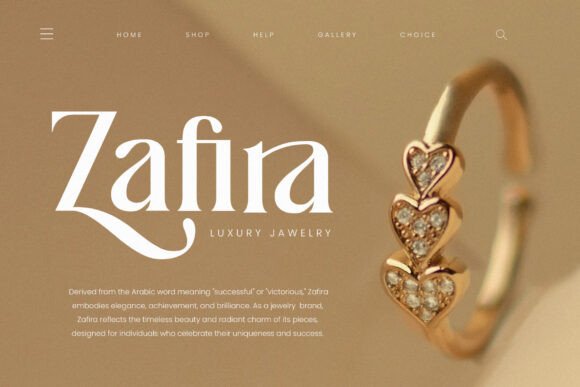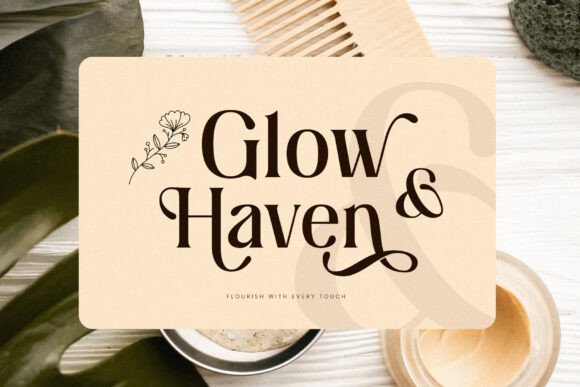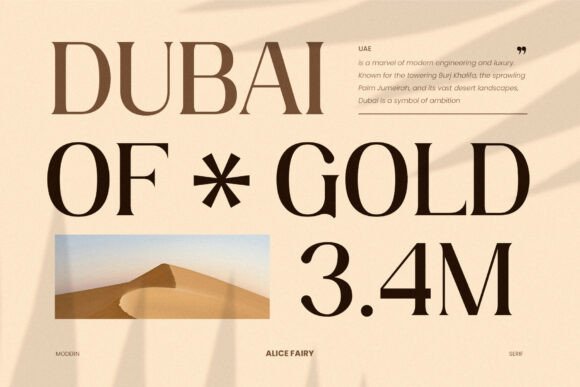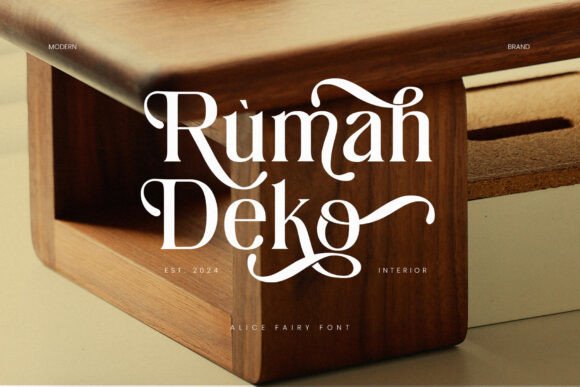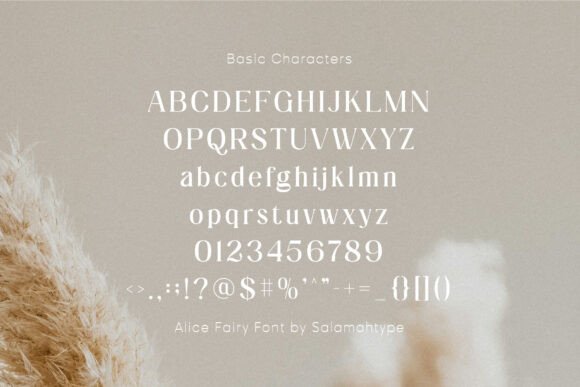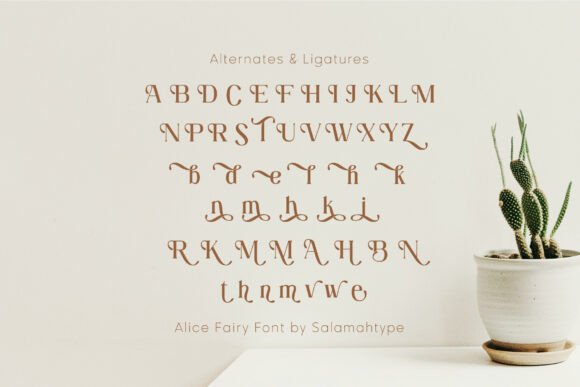
Alice Fairy Font: Elevate Your Designs with Elegance and Versatility
In the world of typography, fonts play a crucial role in conveying the tone and aesthetic of a design. For those seeking a classy and versatile font that can add a touch of elegance to their projects, Alice Fairy Font is an excellent choice. This beautiful font is perfect for designers and crafters looking to create stunning visual content, from logos and websites to wedding invitations and more.
The Beauty of Alice Fairy Font
Alice Fairy Font stands out with its exquisite design, featuring beautiful alternates and decorative tails that can instantly elevate the sophistication of any design. The font’s elegant and refined appearance makes it suitable for a wide range of applications, from romantic and whimsical to professional and corporate. Whether you’re creating a logo, website, or print material, Alice Fairy Font is sure to make a lasting impression.
One of the key benefits of Alice Fairy Font is its versatility. This font is designed to adapt to various design styles and purposes, making it a valuable asset for designers and crafters. Here are some ways you can use Alice Fairy Font:
• Logos: Create a memorable and elegant logo for your brand with Alice Fairy Font. Its unique alternates and decorative tails will help your logo stand out.
• Websites: Enhance your website’s typography with Alice Fairy Font, perfect for headings, titles, and other display text.
• Wedding Invites: Add a touch of romance and sophistication to your wedding invitations, save-the-date cards, and other wedding-related materials.
• Print Materials: Use Alice Fairy Font for brochures, business cards, and other print materials to give them a professional and polished look.
Easy to Use and Multilingual Support
Alice Fairy Font is not only beautiful but also easy to use. The font comes with multilingual support, making it a great fit for projects that require text in multiple languages. This feature is particularly useful for designers working on international projects or for crafters who want to create products for a global audience.
Why Choose Alice Fairy Font?
With so many fonts available, why choose Alice Fairy Font? Here are a few compelling reasons:
• Elegance: Alice Fairy Font exudes elegance and sophistication, making it perfect for designs that require a touch of refinement.
• Versatility: This font is versatile and can be used for a wide range of design projects, from logos and websites to print materials.
• Multilingual Support: The font’s multilingual support makes it a great choice for international projects.
Tips for Using Alice Fairy Font
To get the most out of Alice Fairy Font, here are a few tips:
• Experiment with Alternates: Take advantage of the font’s beautiful alternates to add visual interest to your designs.
• Mix and Match: Combine Alice Fairy Font with other fonts to create a unique and visually appealing typography.
• Pay Attention to Spacing: Make sure to adjust the spacing between letters and lines to ensure optimal readability.
Alice Fairy Font is a classy and versatile font that’s perfect for designers and crafters looking to add a touch of elegance to their designs. With its beautiful alternates, decorative tails, and multilingual support, this font is suitable for a wide range of applications. Whether you’re creating a logo, website, or print material, Alice Fairy Font is sure to make a lasting impression. So why not give it a try and see how it can elevate your designs?